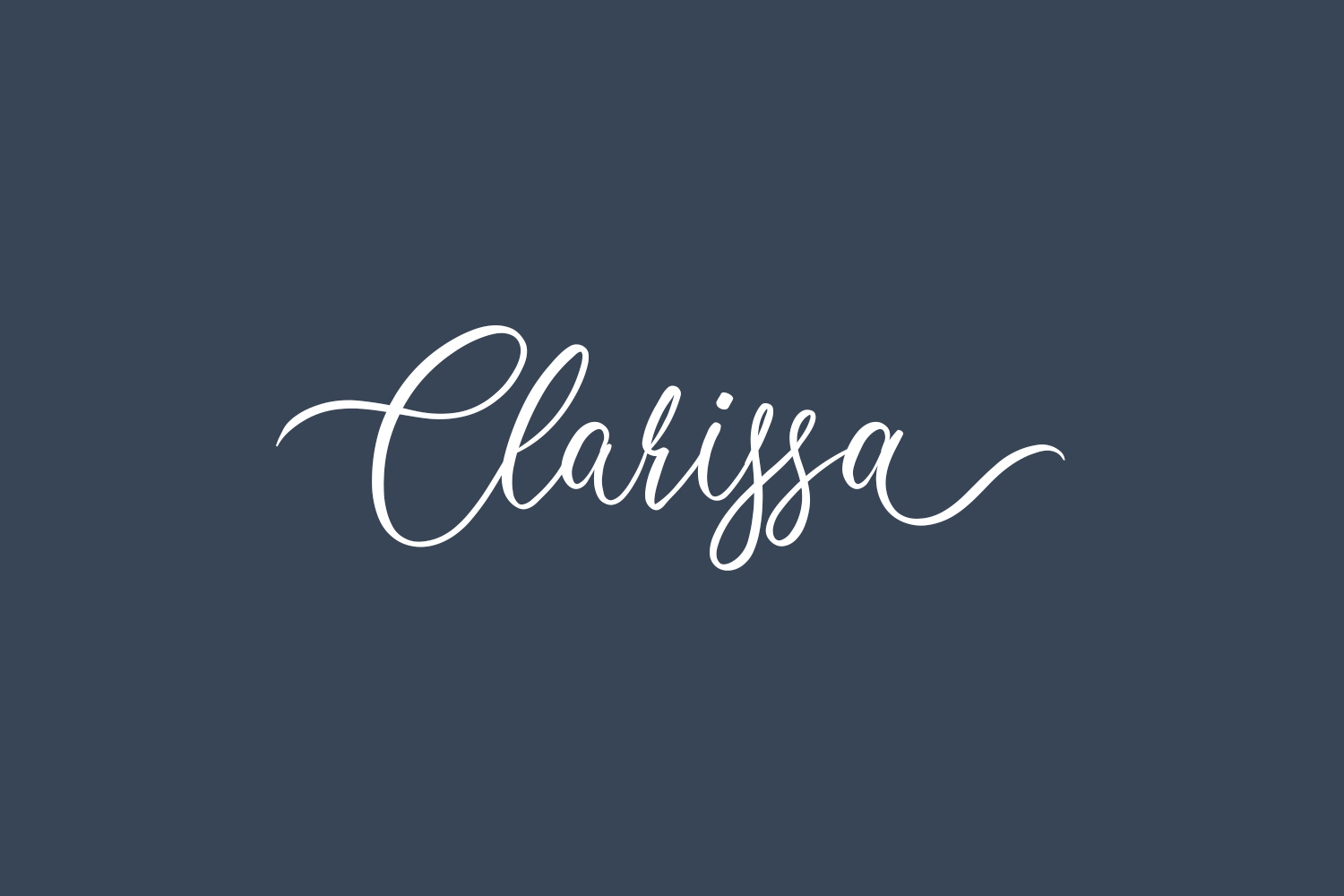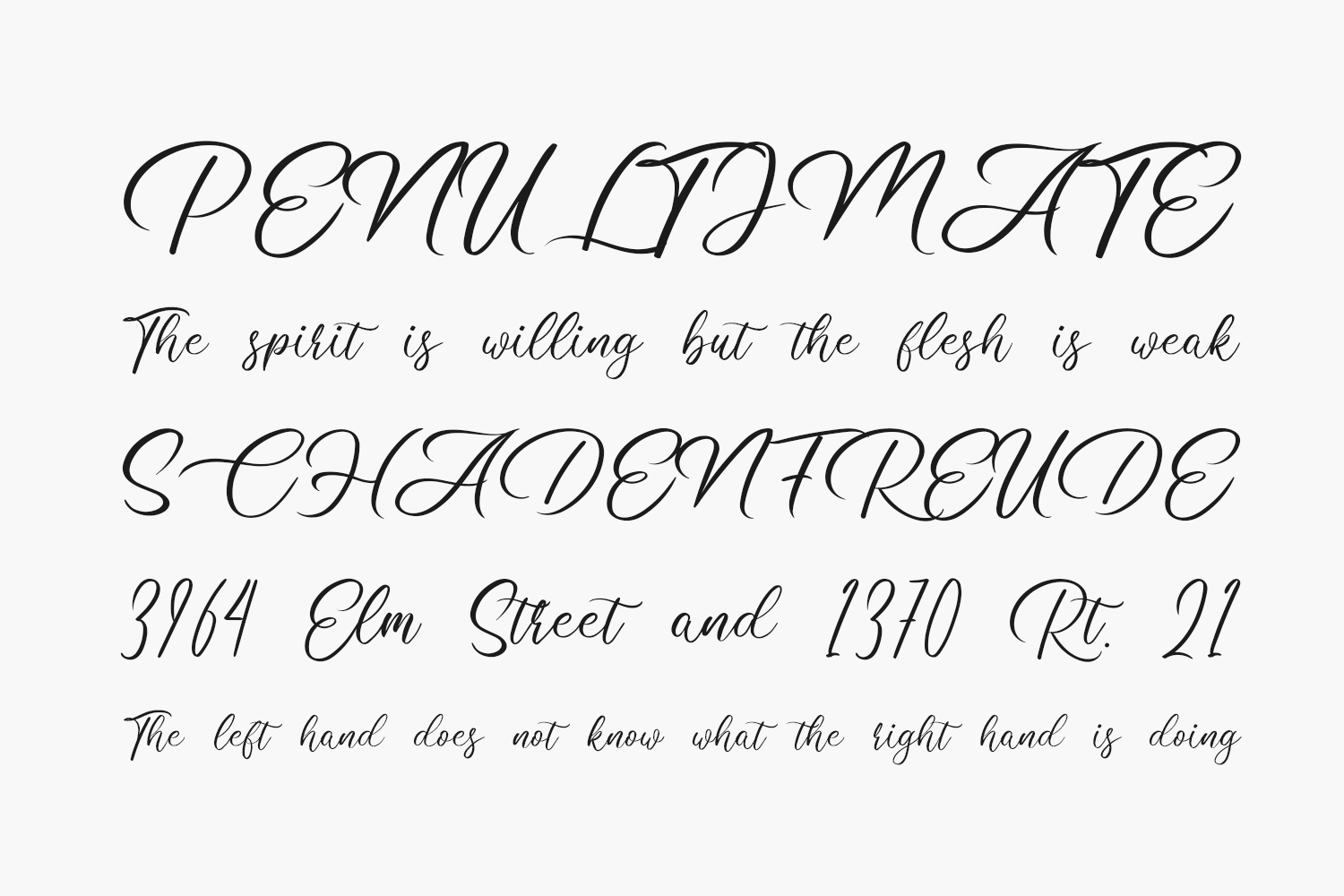
Clarissa Free Font feels equally charming and elegant. It looks stunning on wedding invitations, thank you cards, quotes, greeting cards, logos, business cards, and every other design which needs a handwritten touch. Clarissa Free Font was designed by Bangkit Tri Setiadi and is free for personal or commercial use.